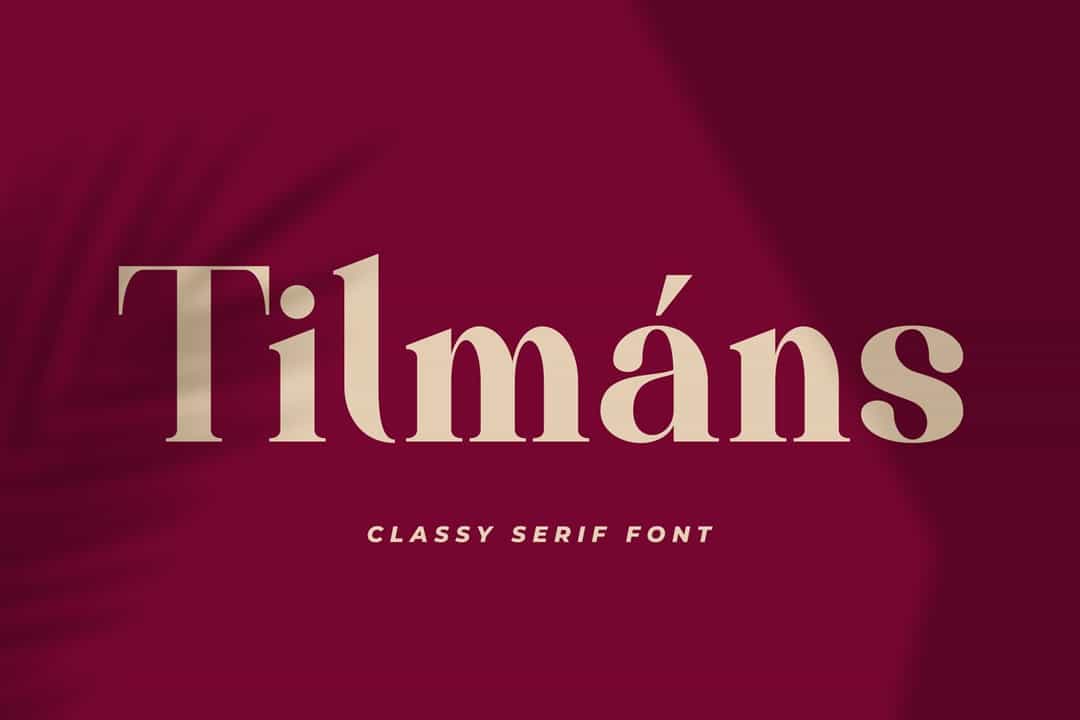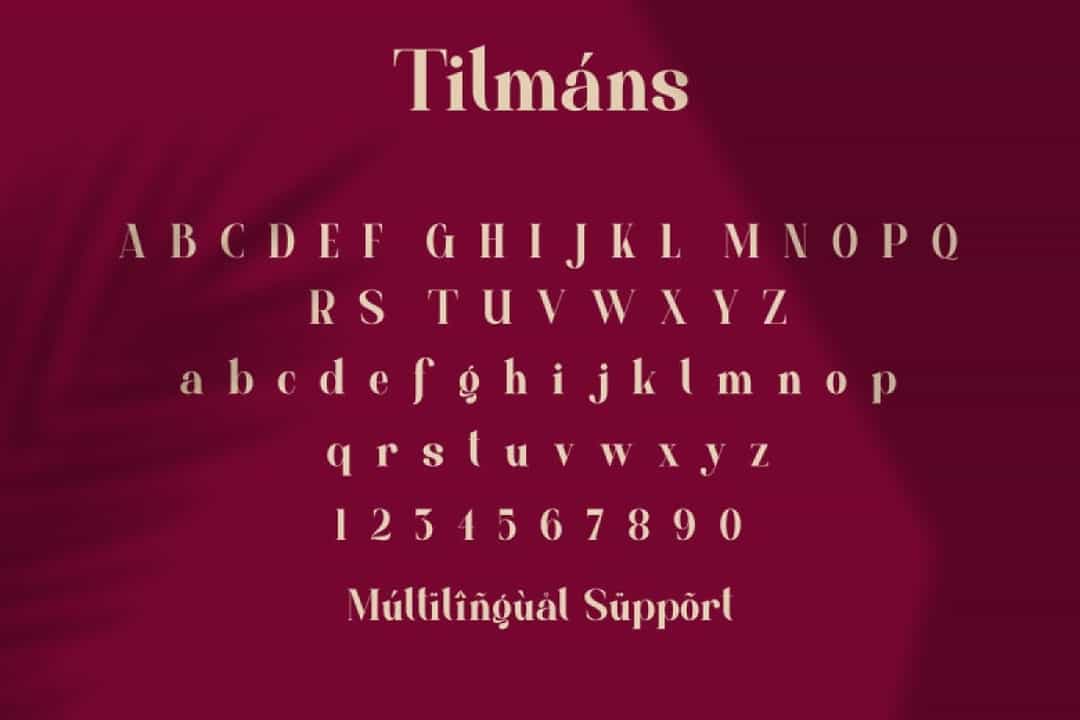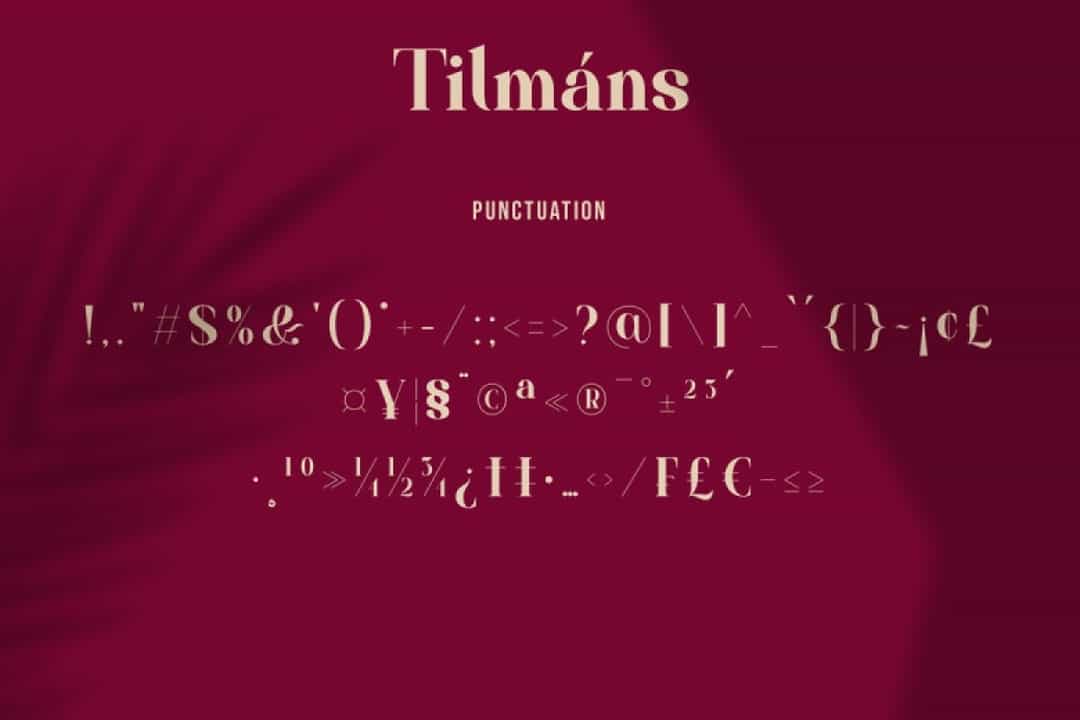
Tilmans Classic is an elegant and very noticeable serif font, containing many ligatures as well as additional fonts that will enhance any presentation or logo. Tilmans also features Multi Language support and is delivered with the PUA encoding!